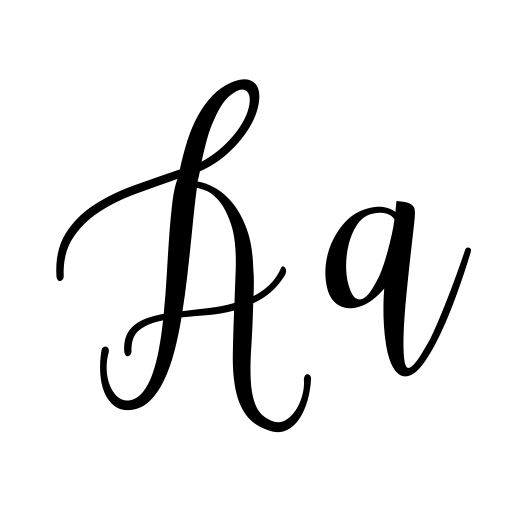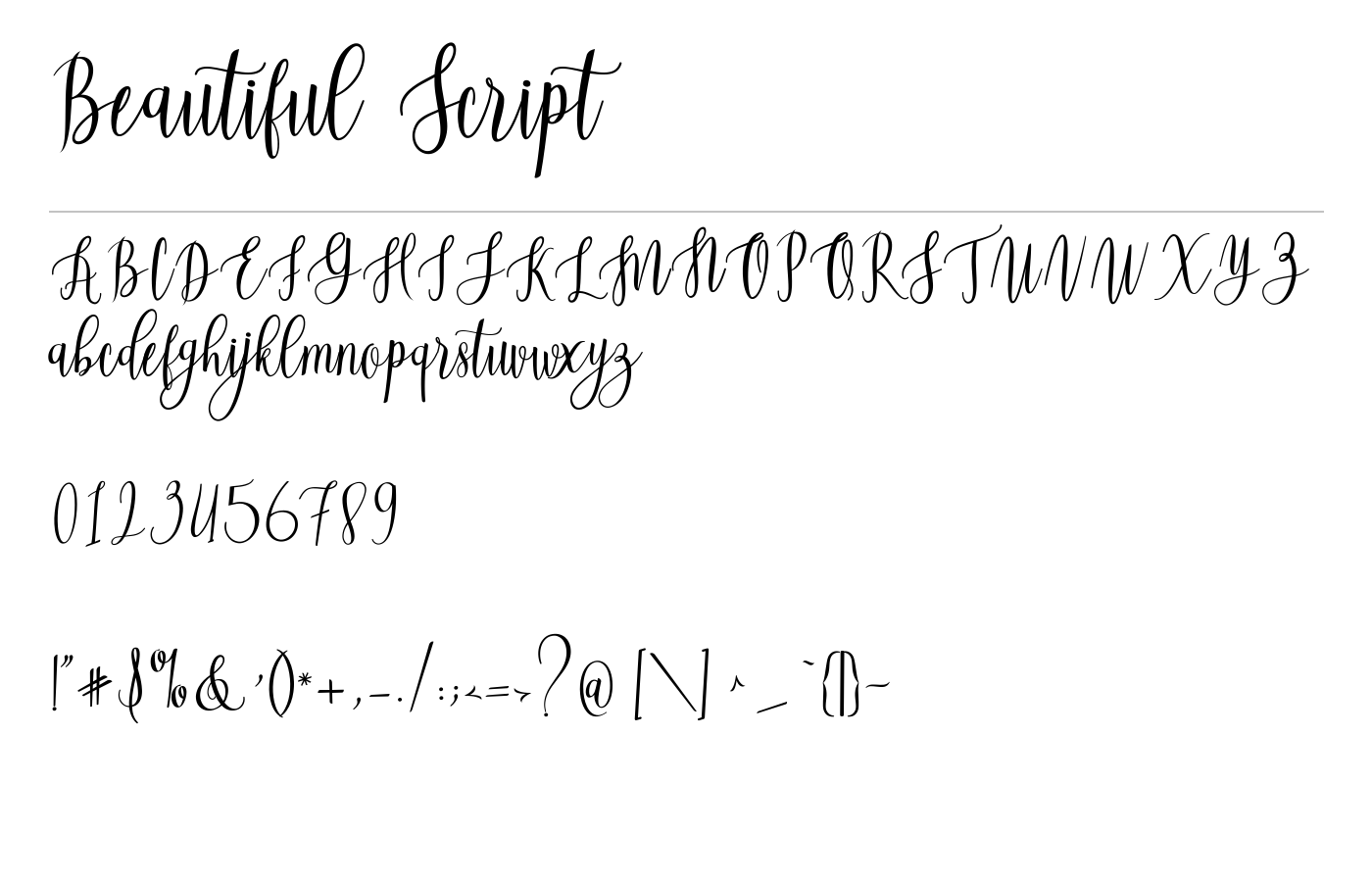
Beautiful Script is a delicate and elegant handwritten script font characterized by its slender, flowing strokes and refined loops. It offers a graceful, airy feel with moderate contrast and charming stylistic swashes, making it perfect for wedding invitations, feminine branding, and sophisticated editorial designs. This font’s light, artistic style brings a personal and romantic touch to any project needing a stylish, handwritten flair.
Beautiful Script Font
About Beautiful Script Font